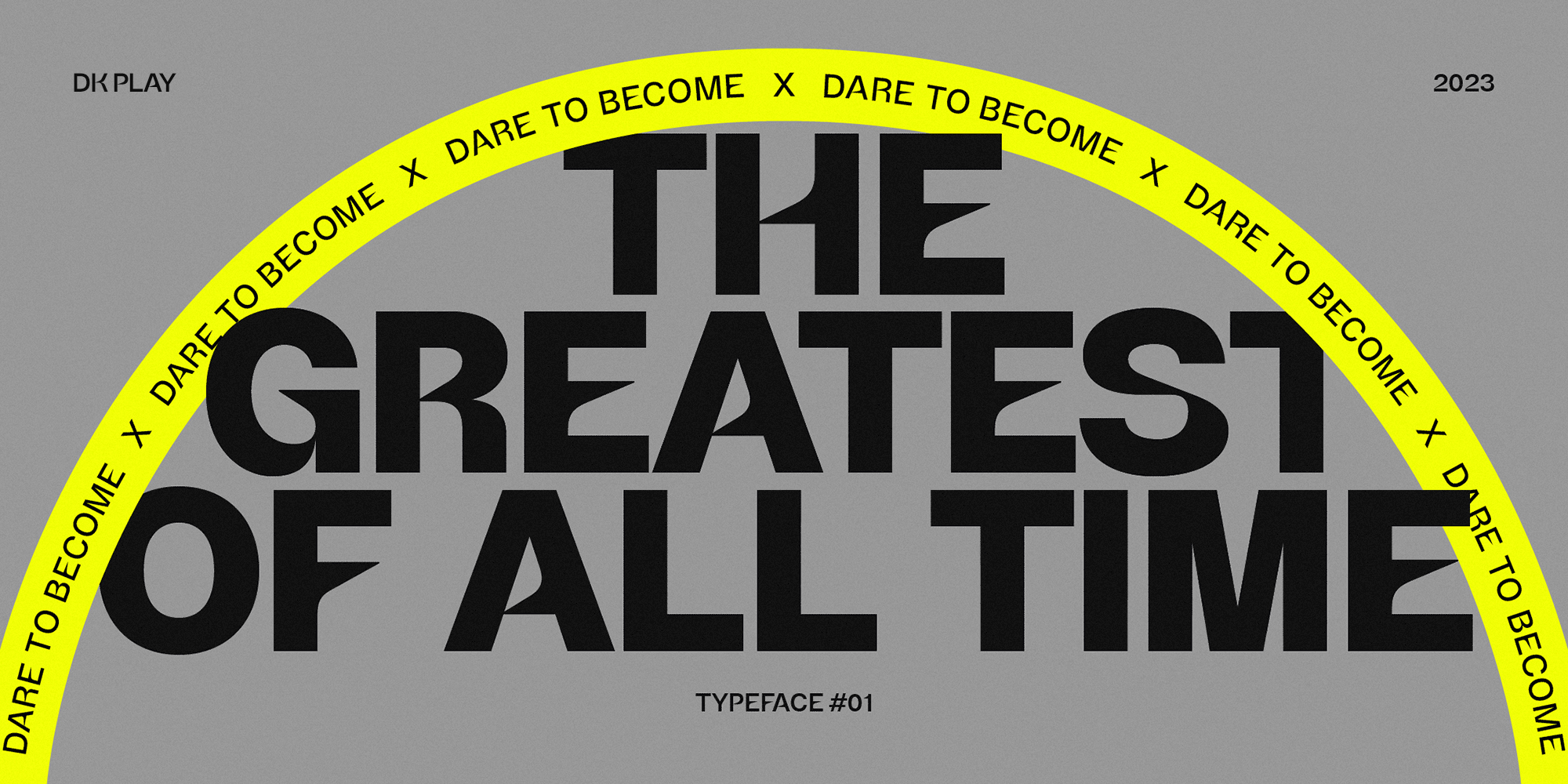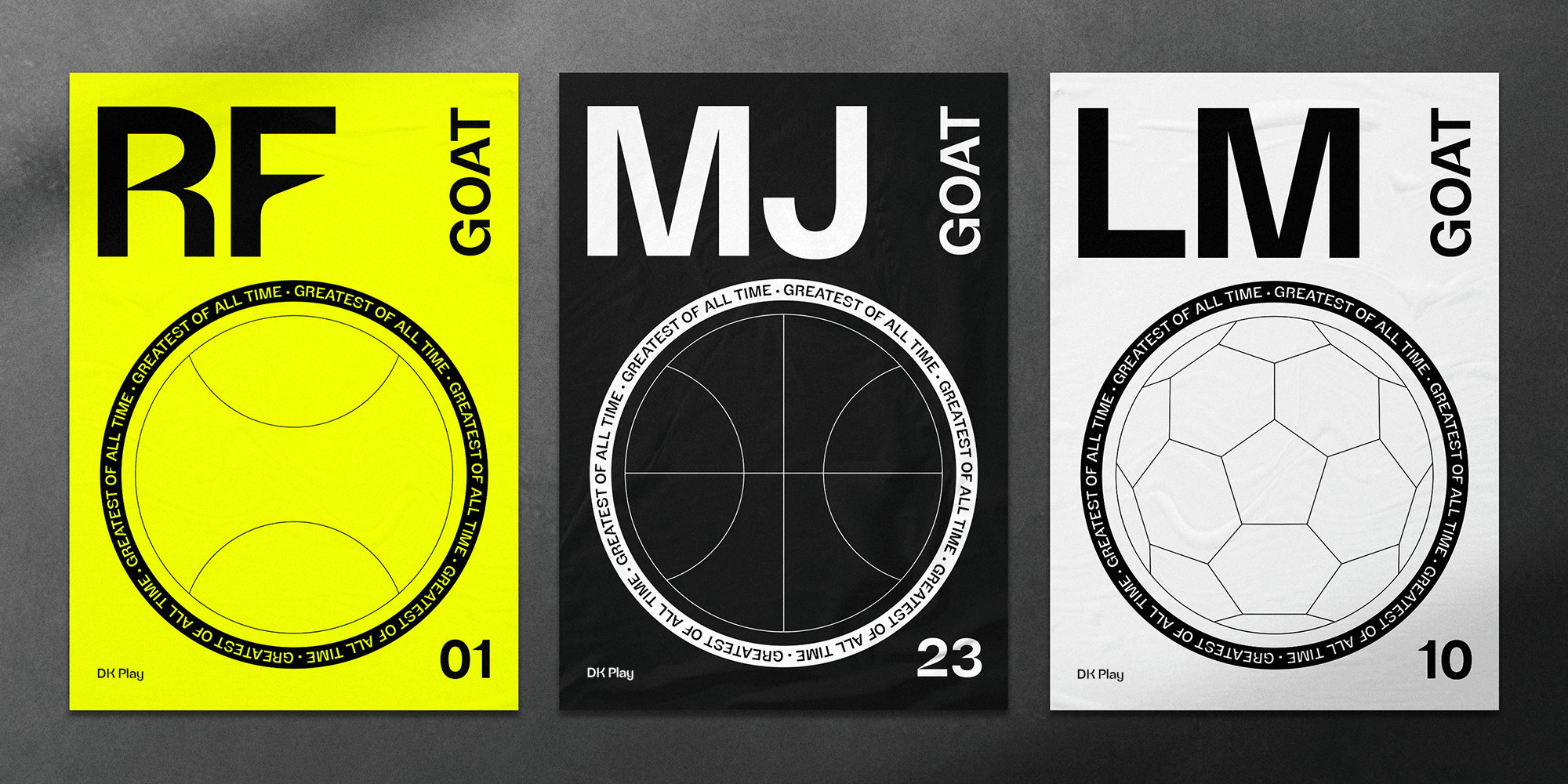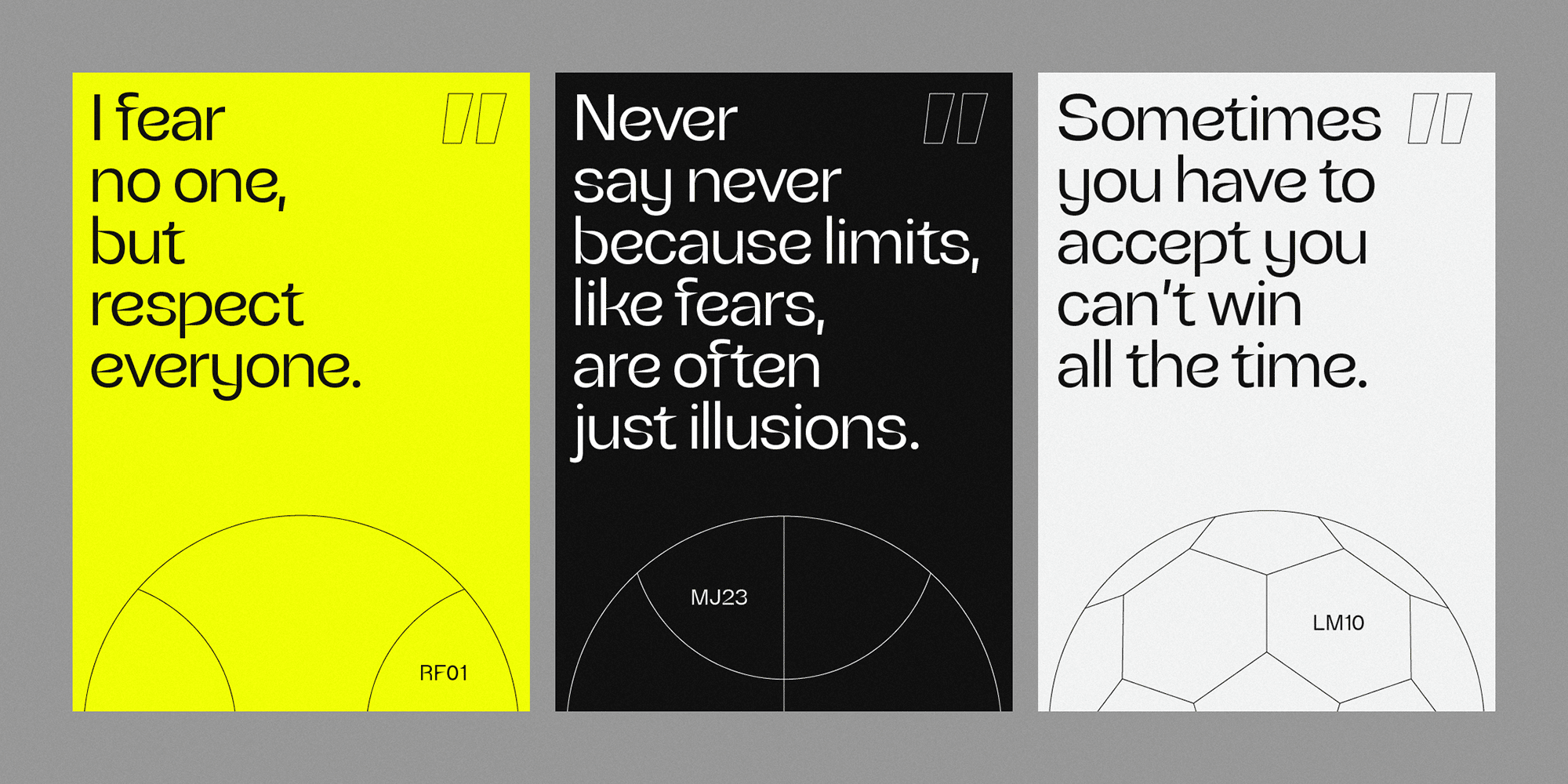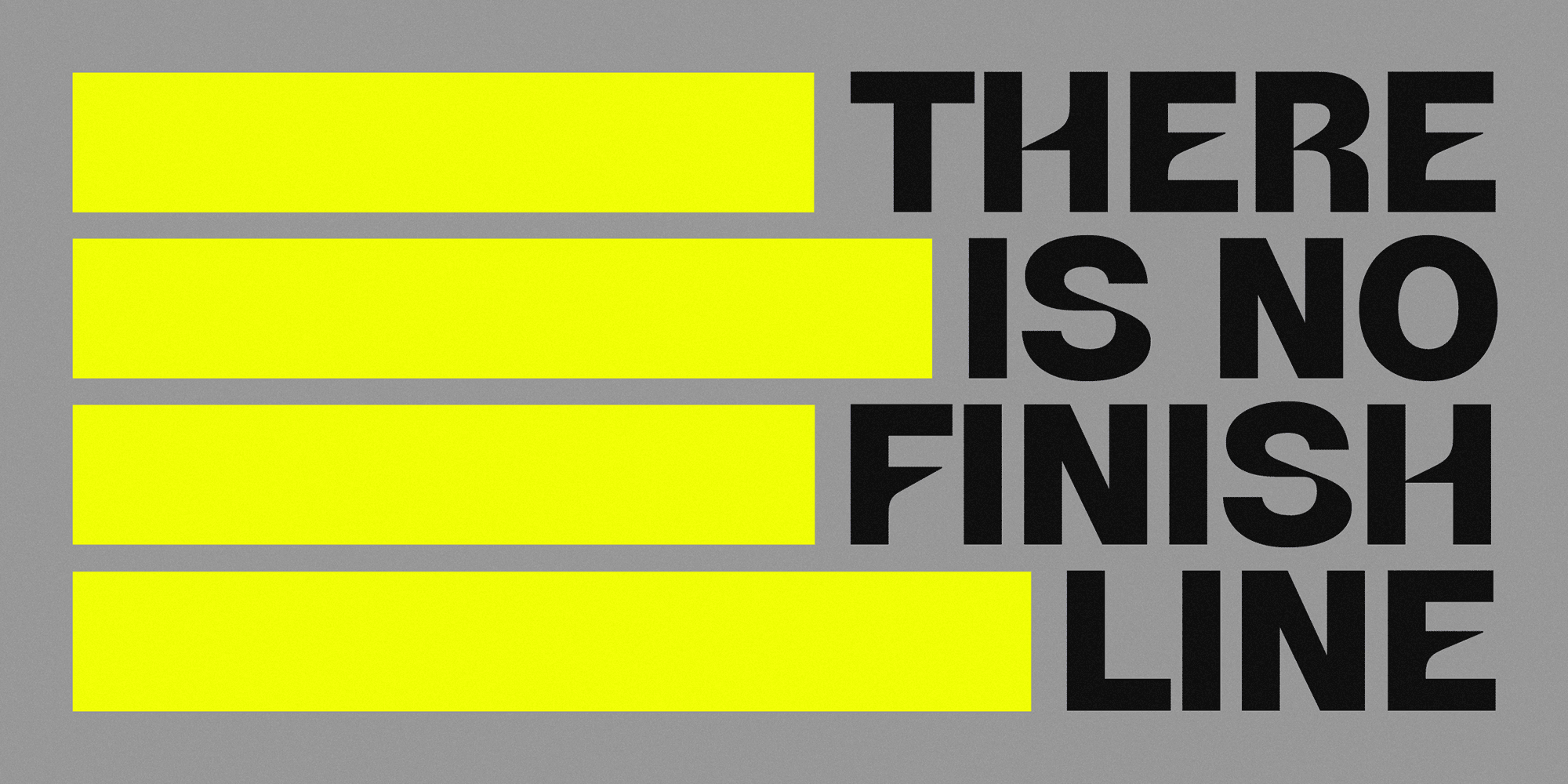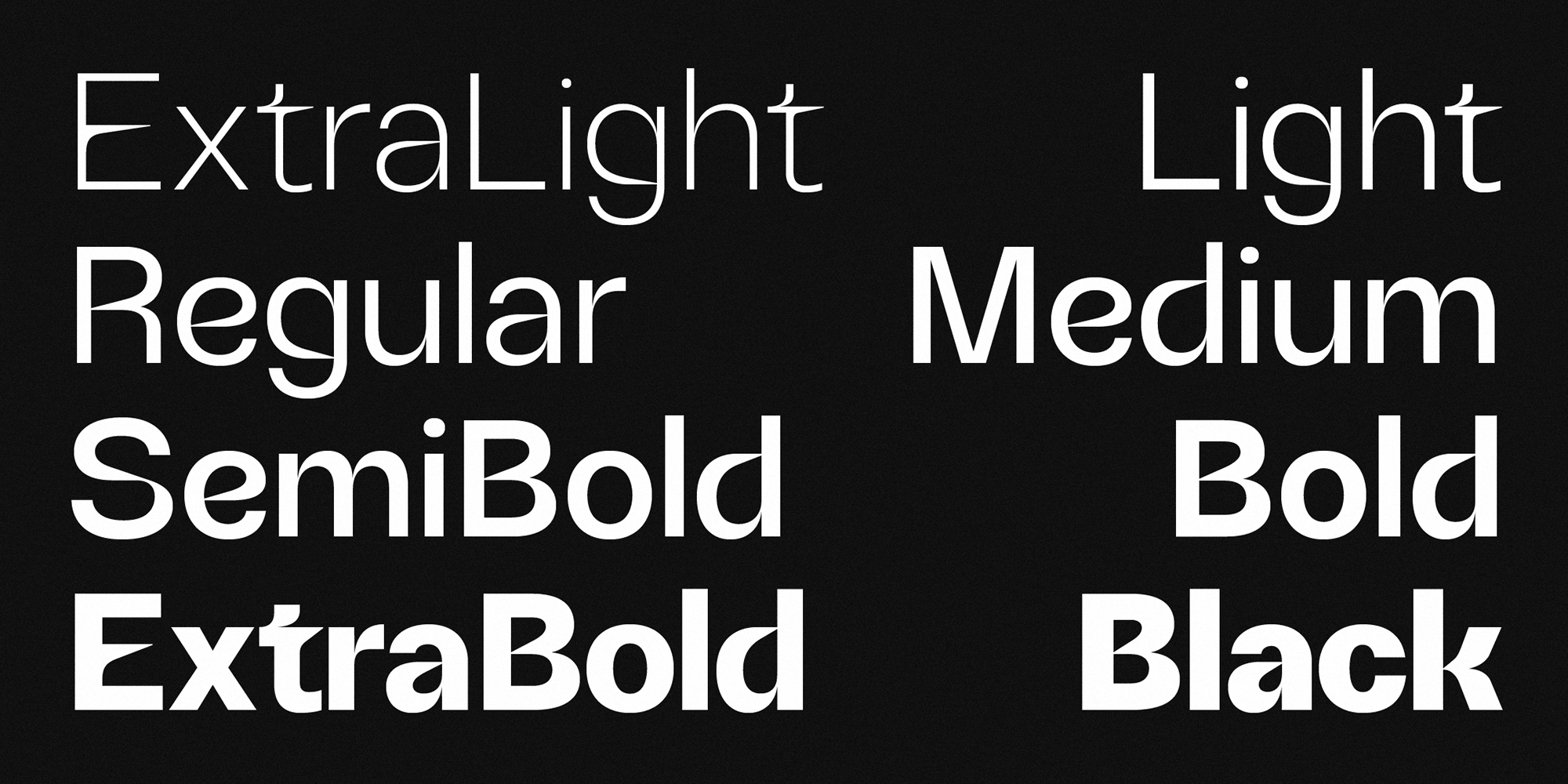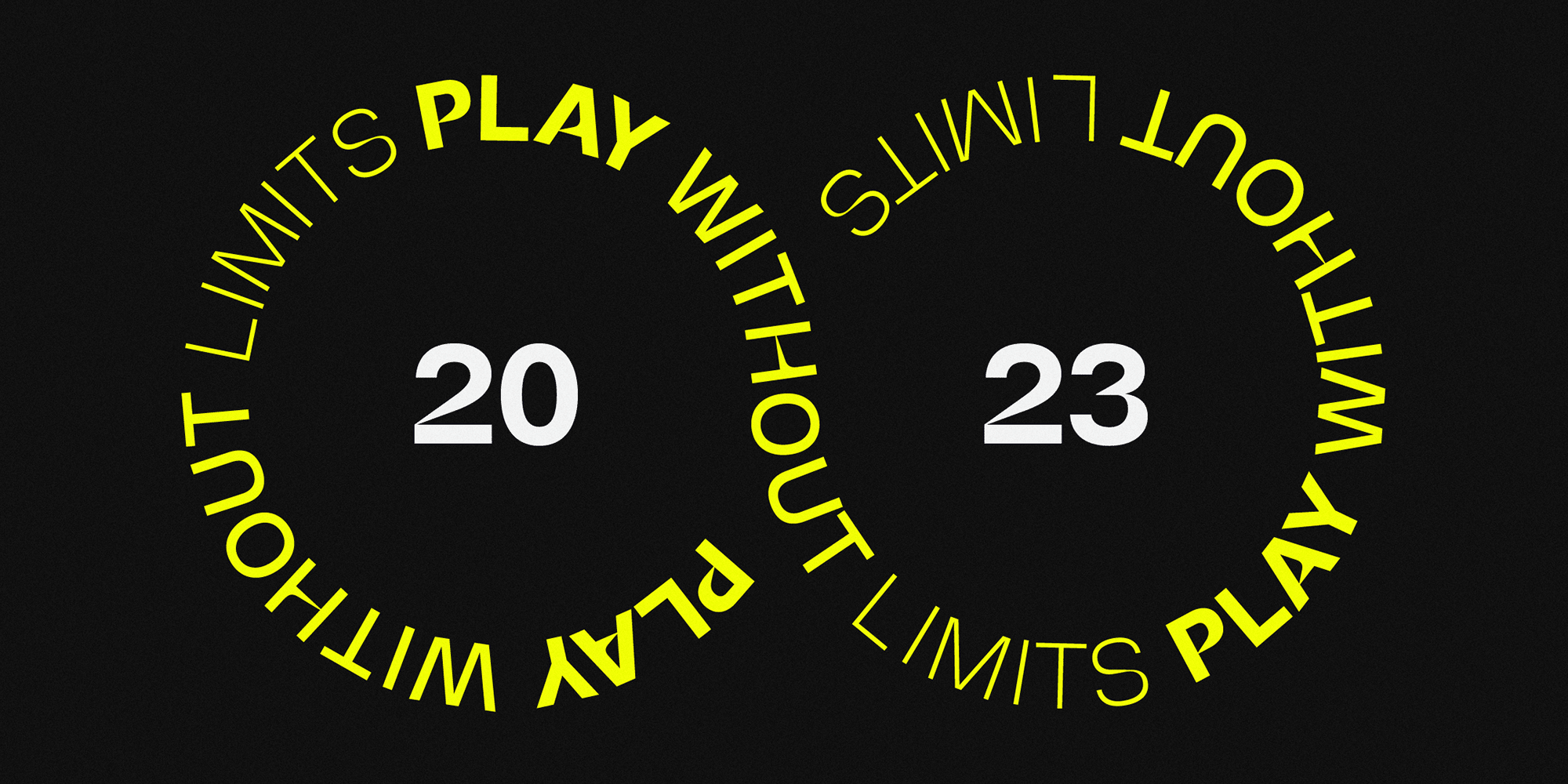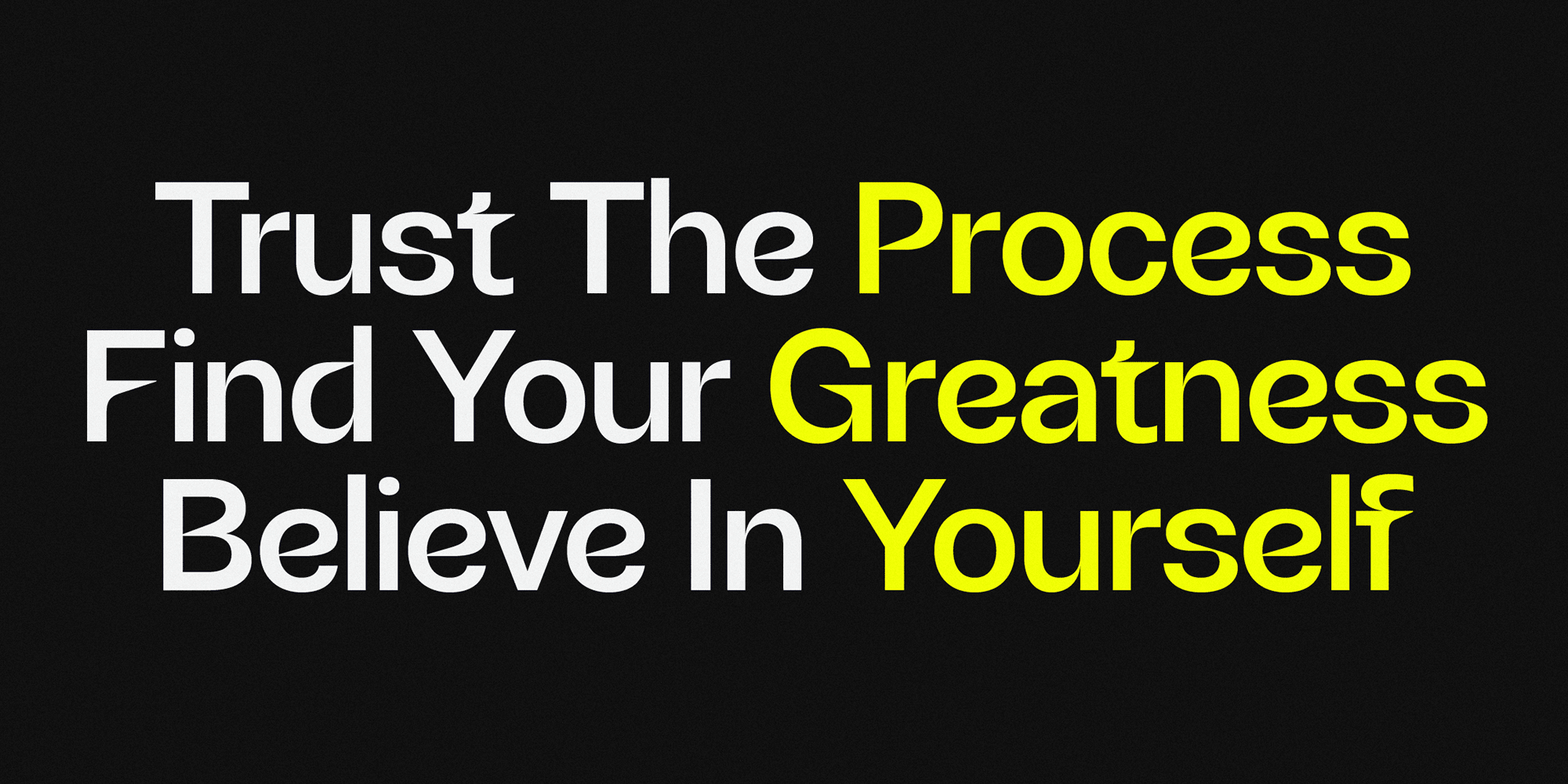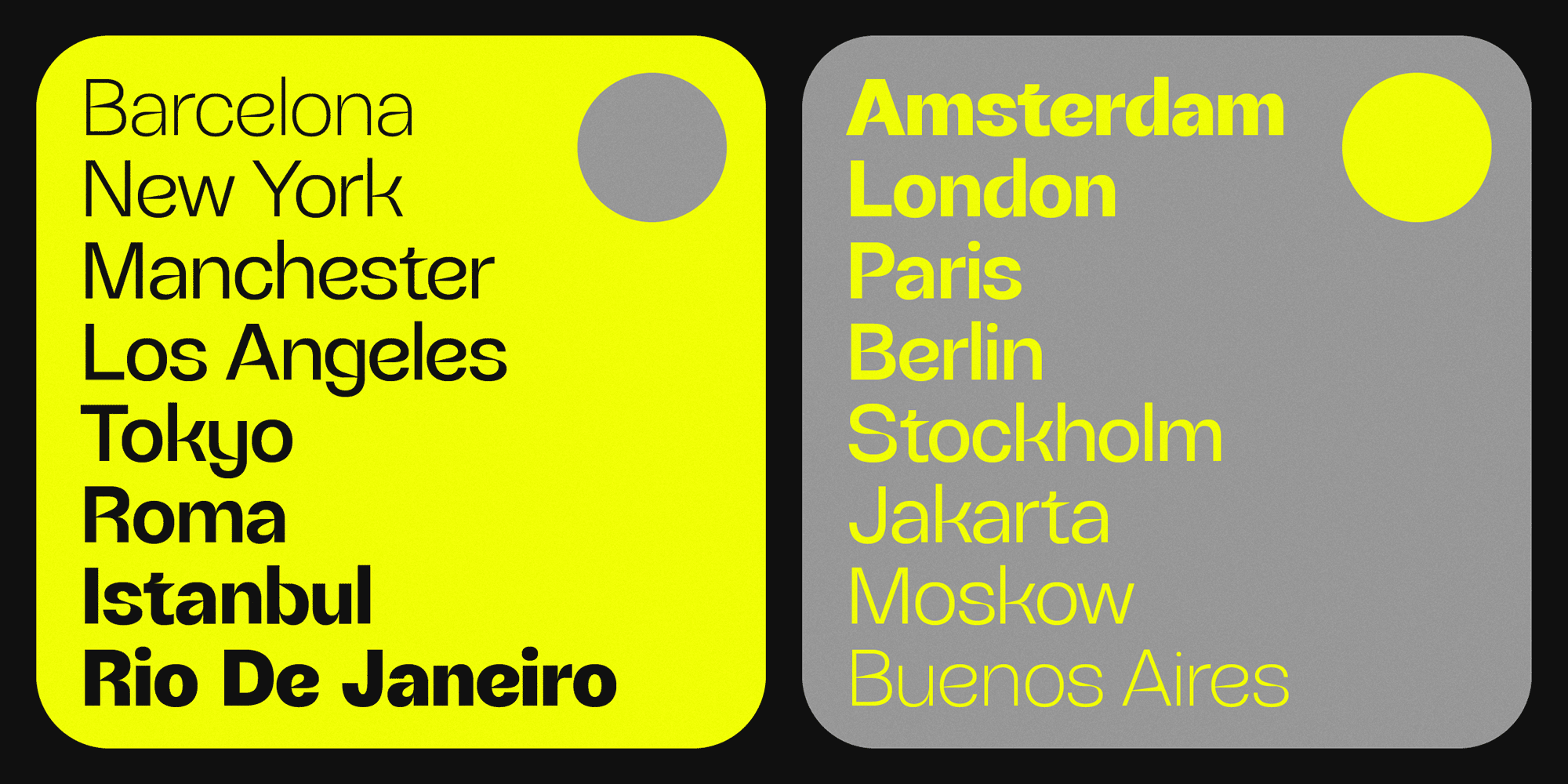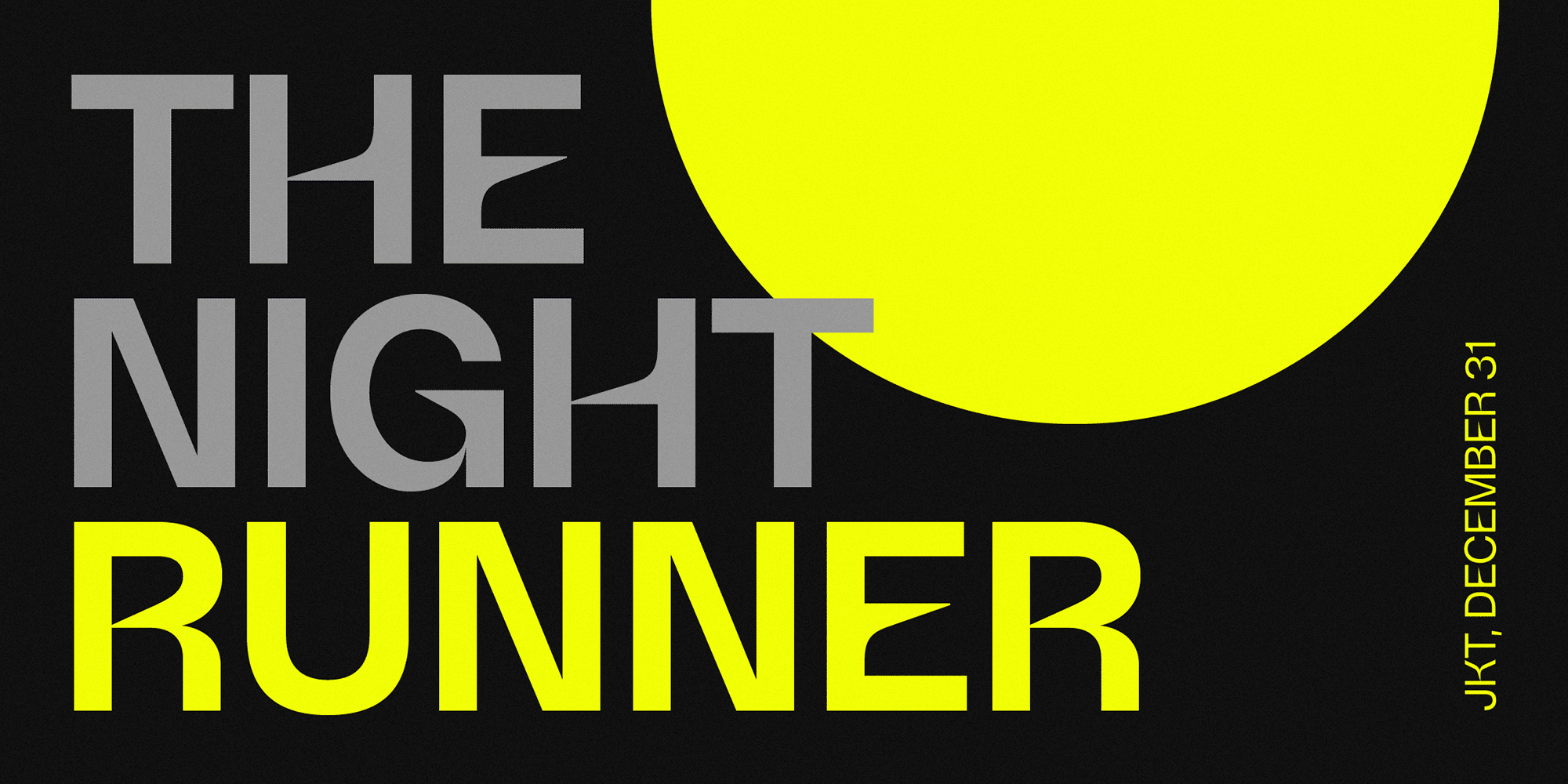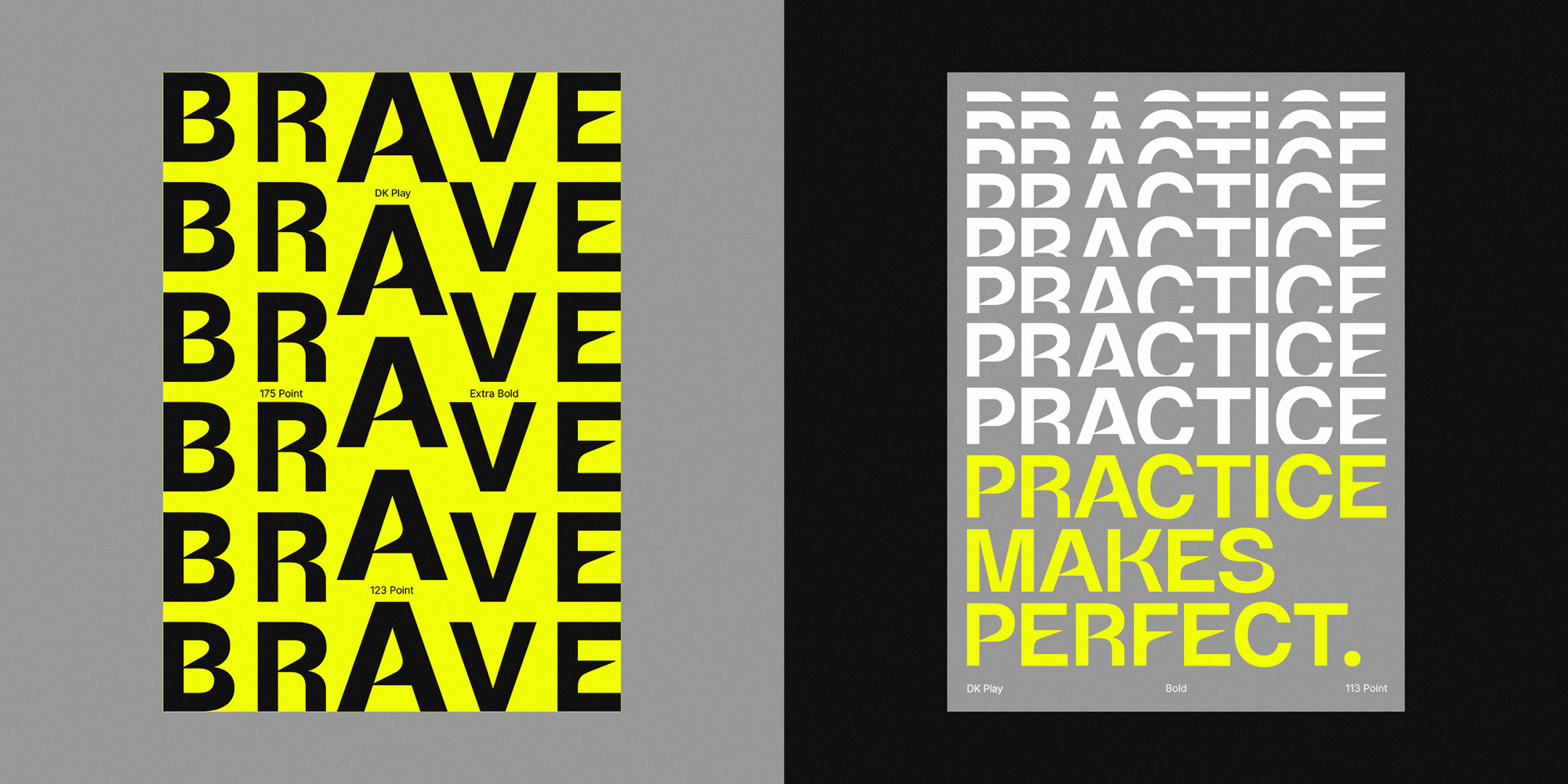
DK Play
DK Play is a modern sans-serif typeface designed by Darman Kadir. It draws inspiration from Swiss-style typefaces like Helvetica, resulting in a clean and strong aesthetic. The font is well-suited for display purposes such as branding, headlines, and advertising, particularly within the sports and apparel industries. DK Play's solid and fast appearance lends itself to creating a prominent and impactful visual identity.